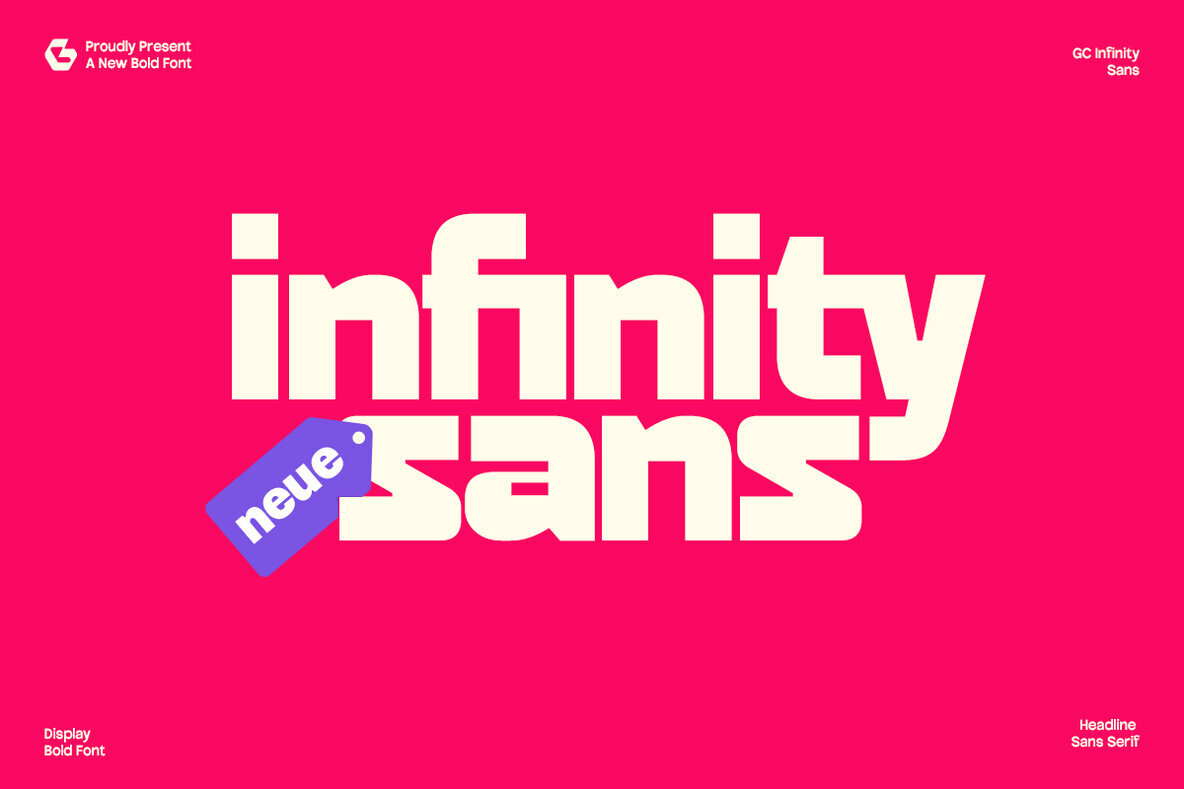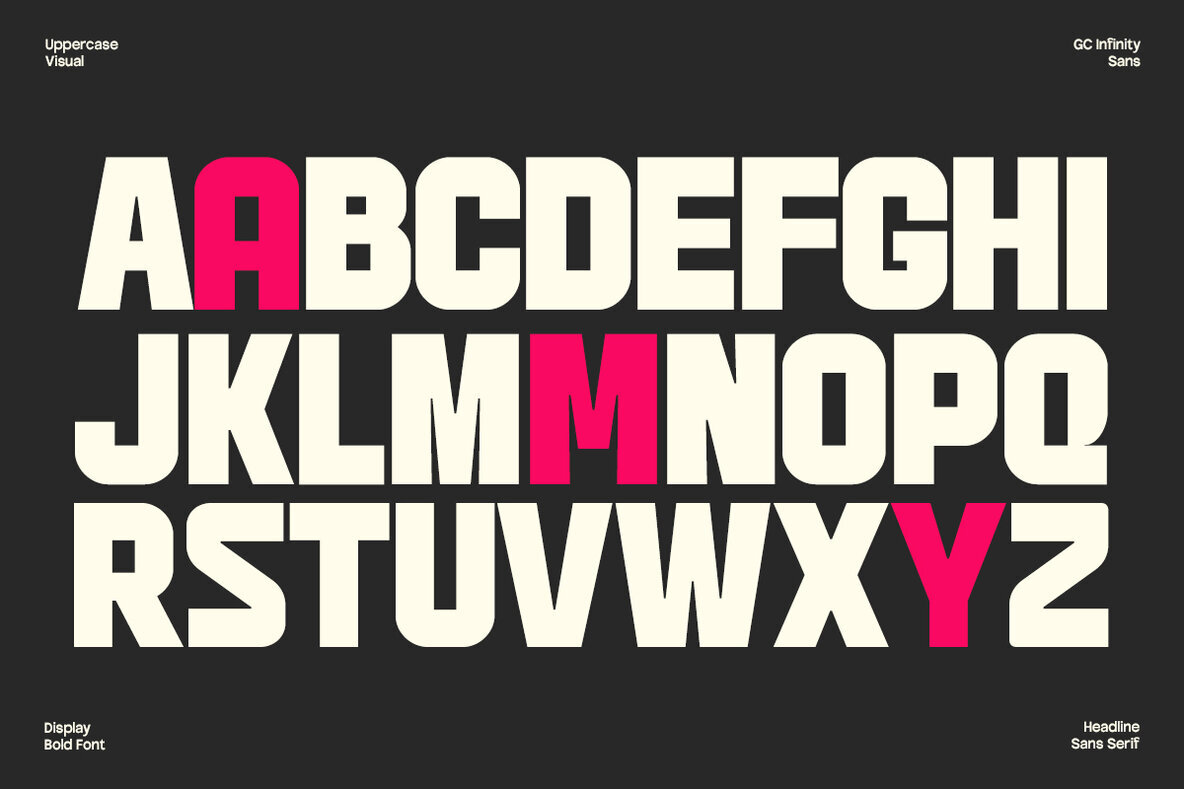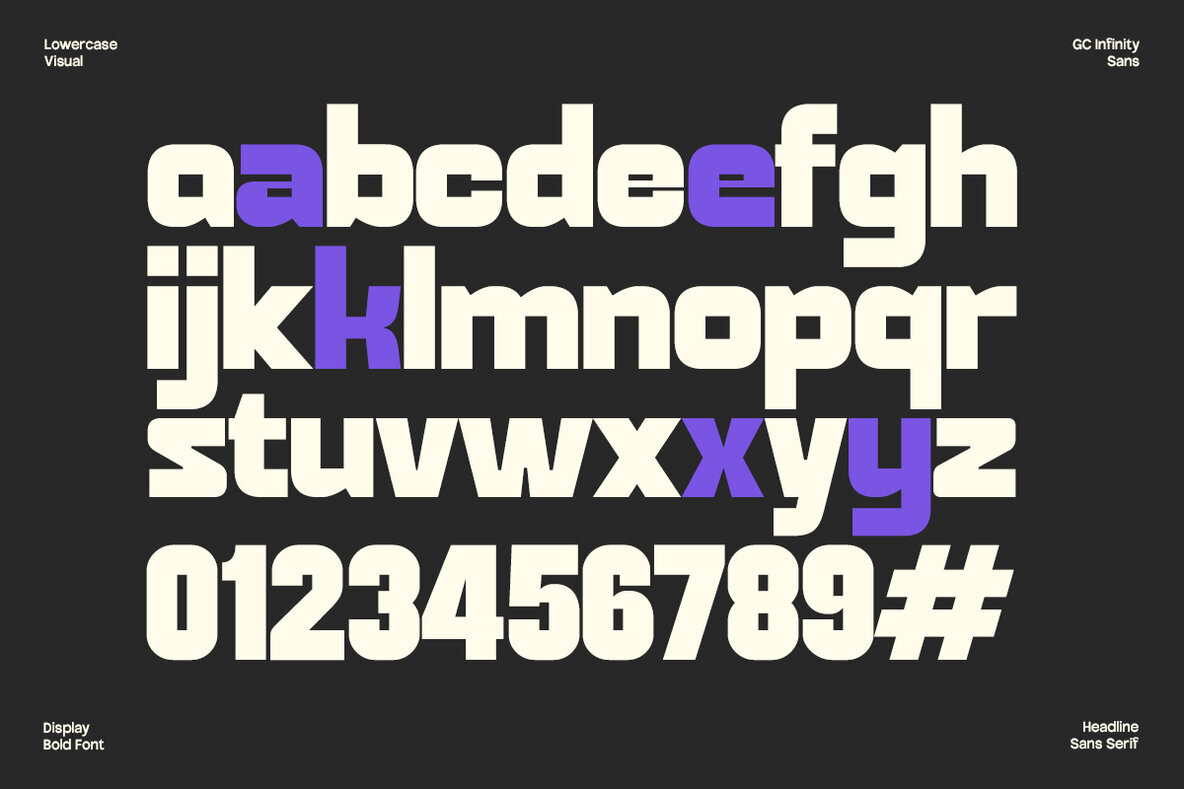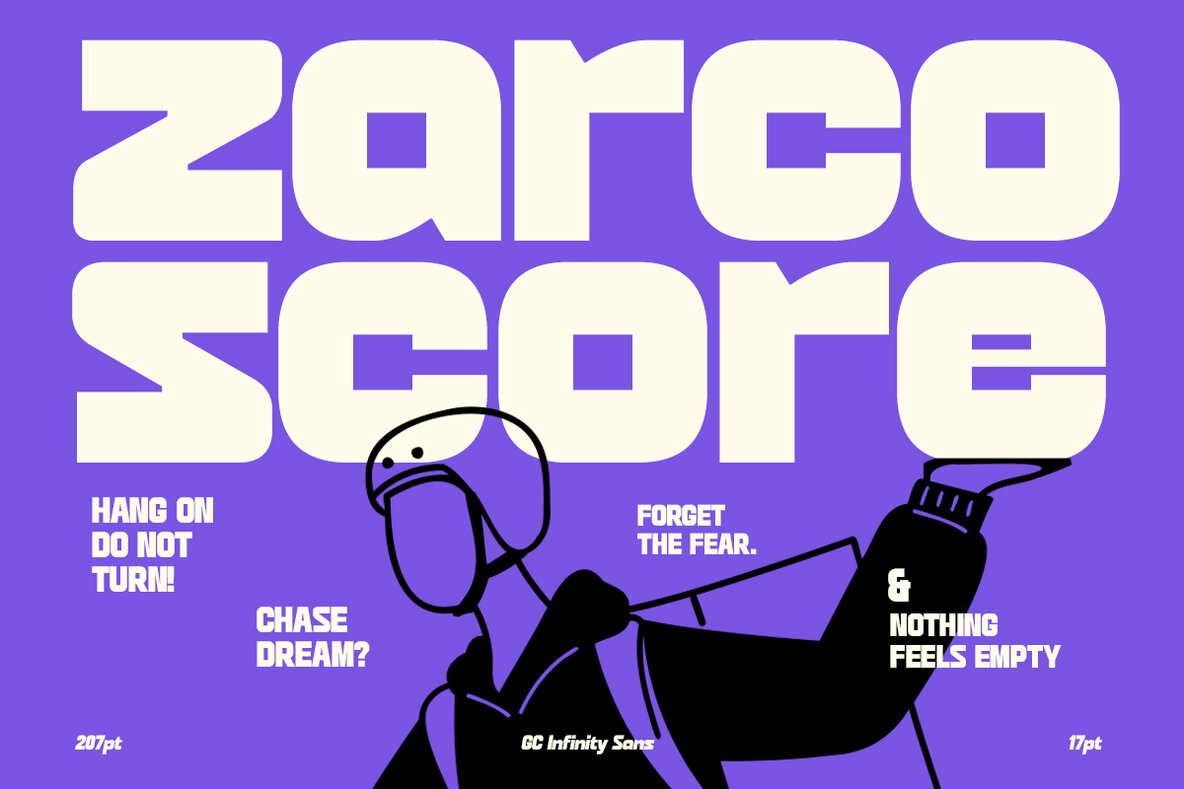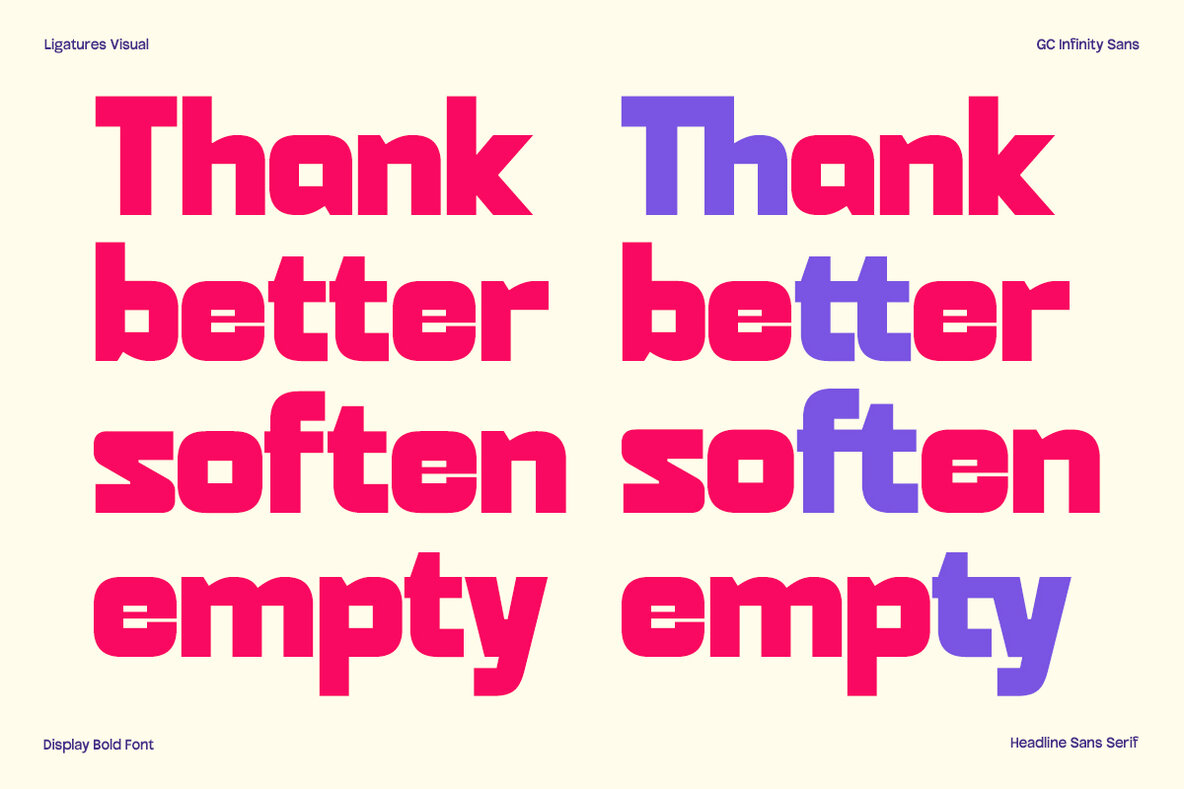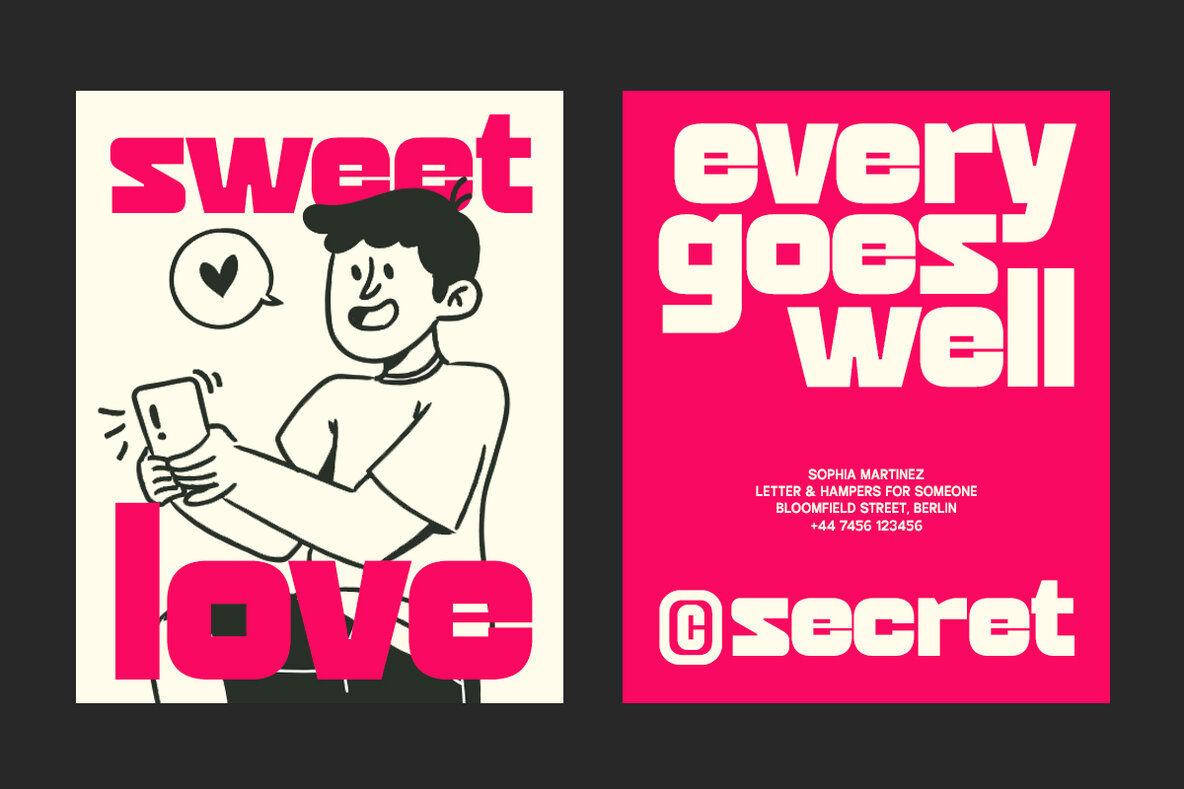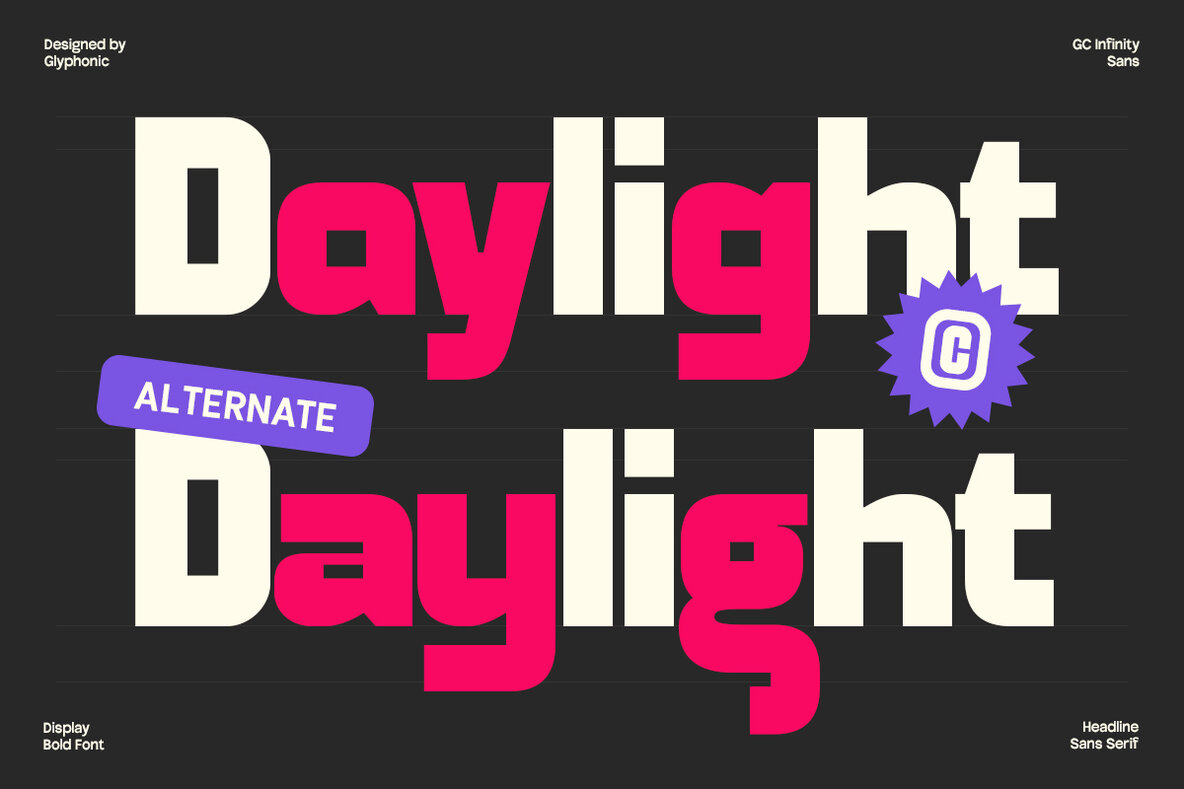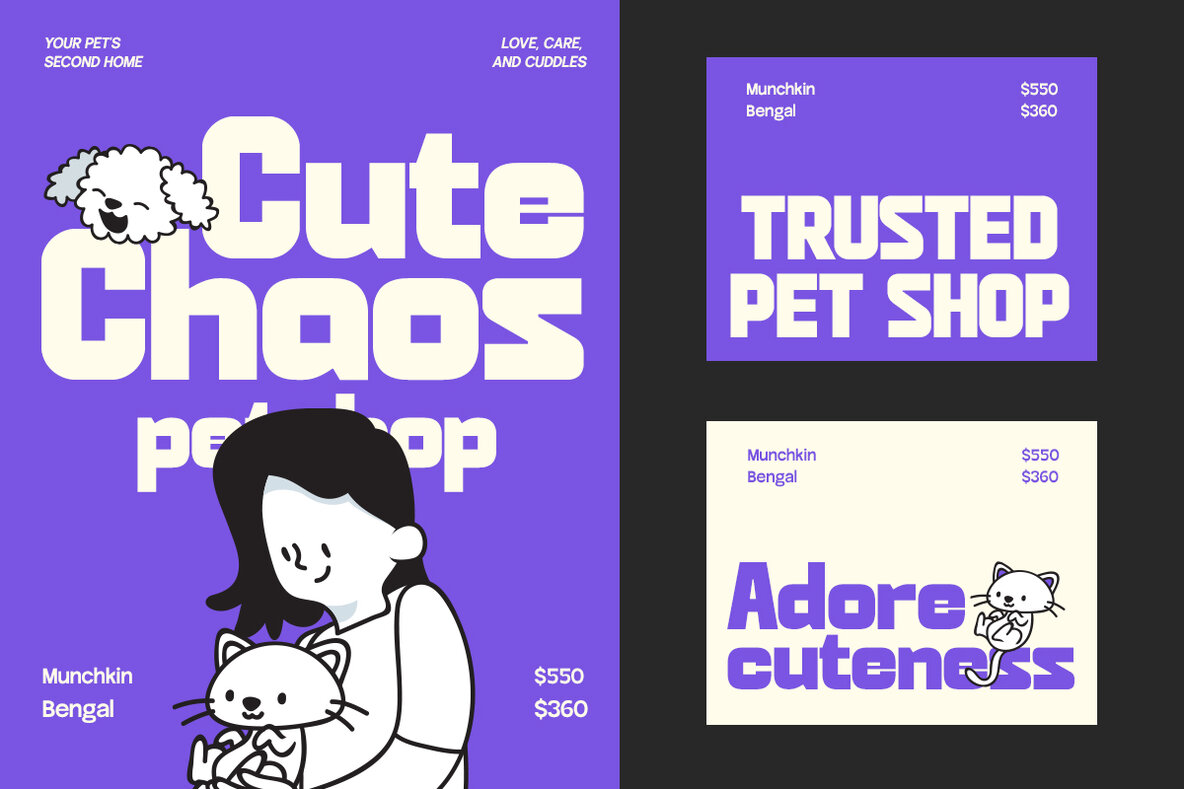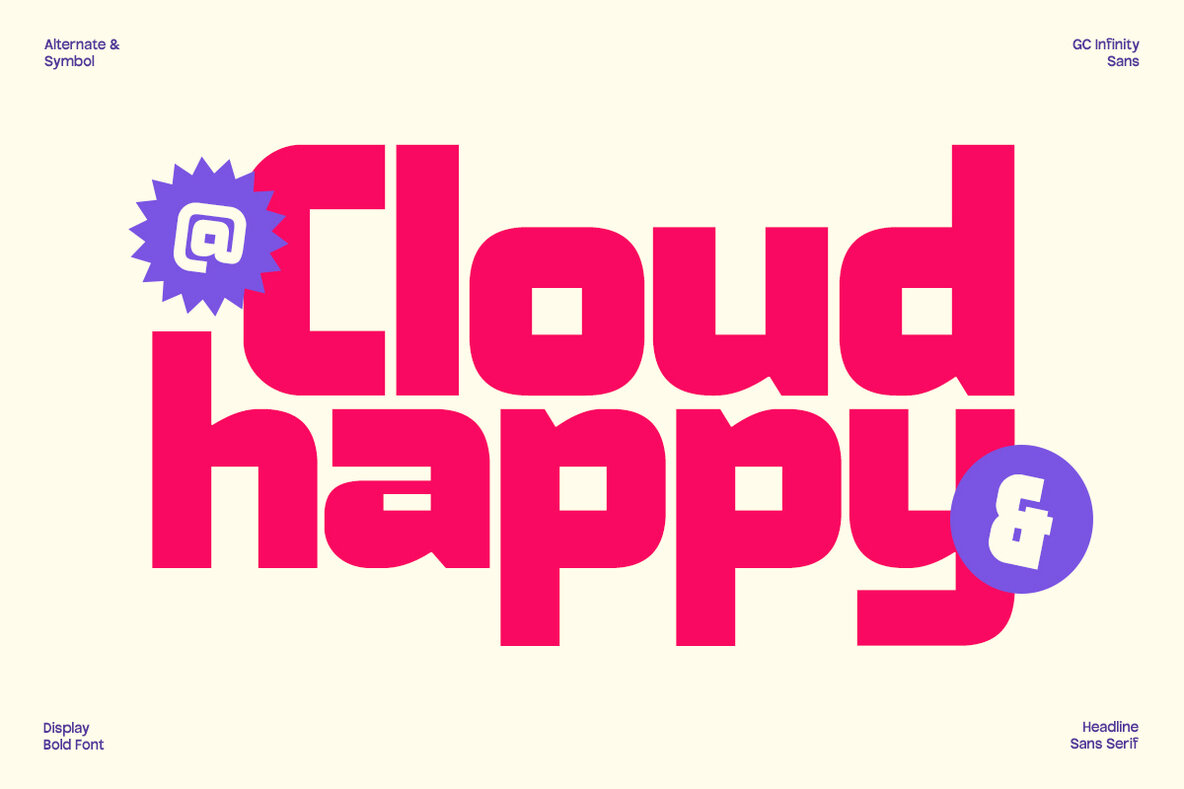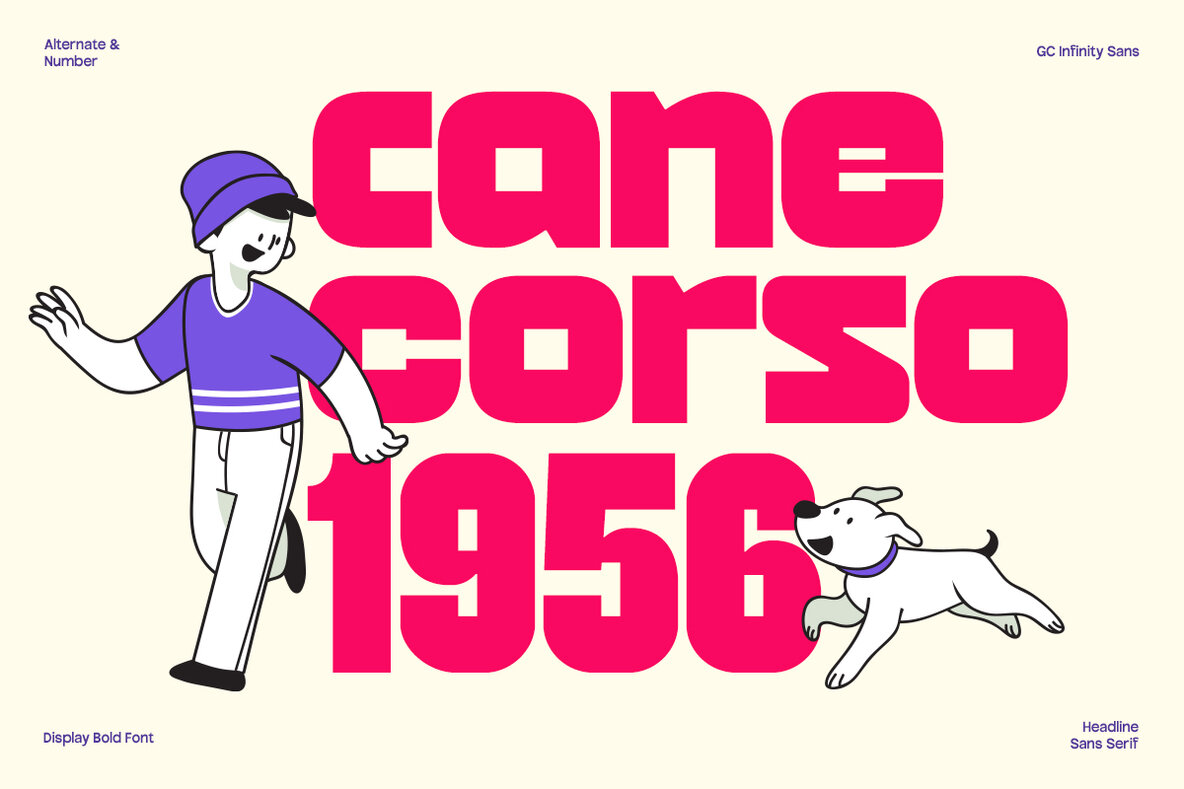
GC Infinity Font
GC infinity Sans Black
GC Infinity exemplifies a bold display sans-serif font that masterfully combines striking modernism with a strong geometric structure. Its boldness and clarity make it an ideal choice for commanding headlines, statement branding, logo design, editorial titles, and bold packaging. Characterized by thick, solid letterforms, minimal contrast, and clean curves, GC Infinity encapsulates a sense of power and simplicity. The carefully spaced characters provide balance and visual strength, making it perfect for tech, sports, urban, and fashion-related projects. Features:GC Infinity: Bold Display Sans-Serif for Impactful Design